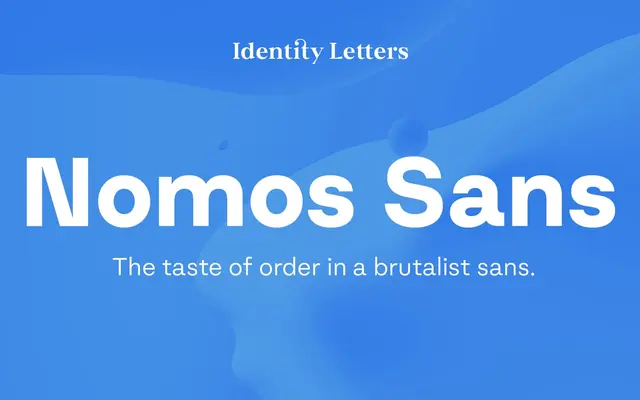
Nomos Sans
A low-contrast neogrotesque with brutalist sensibilities, built across 18 static styles and a variable axis spanning Thin to Black with matching italics.
Nomos Sans draws on both classic modernism and internet-age aesthetics, using simple letterforms and blunt junctions between diagonal and vertical stems to achieve its raw quality. The family ships with over 1000 characters and an extensive set of OpenType alternates, including single- and double-storey 'a' forms, alternate 'l', 'I', 'J', 'y' and 'Y', square punctuation, and both proportional and oldstyle figures. Variable font files cover the full weight range in upright and italic, making the family suited to screen-first work where flexibility across weights is needed.
Identity Letters describe it as a low-contrast neogrotesk with raw, functional letterforms and blunt junctions between diagonal and vertical stems, placing it squarely in the neogrotesque tradition with a brutalist inflection.